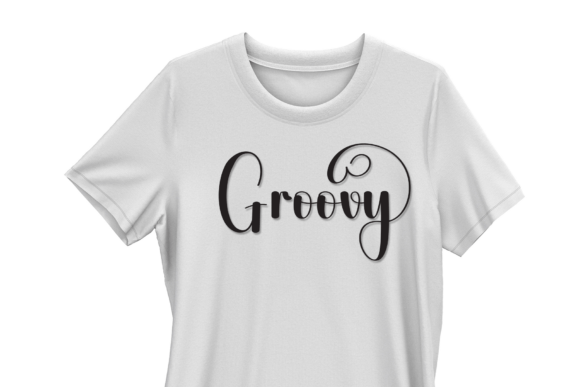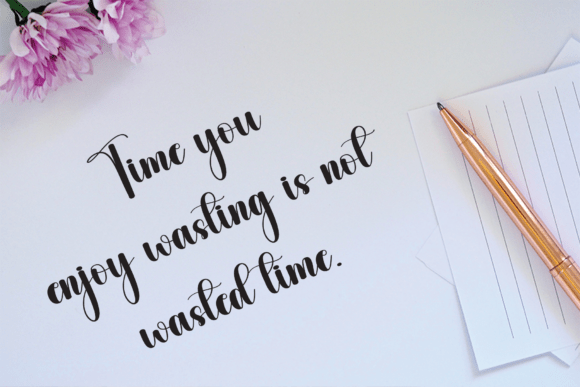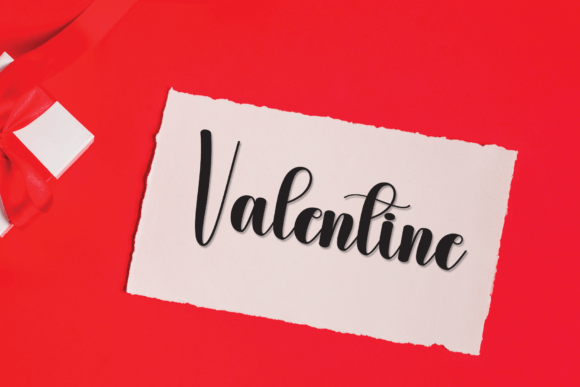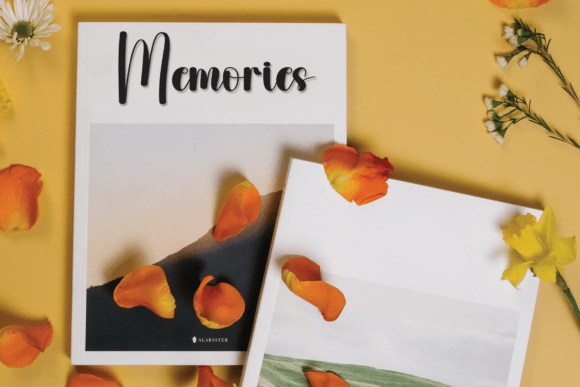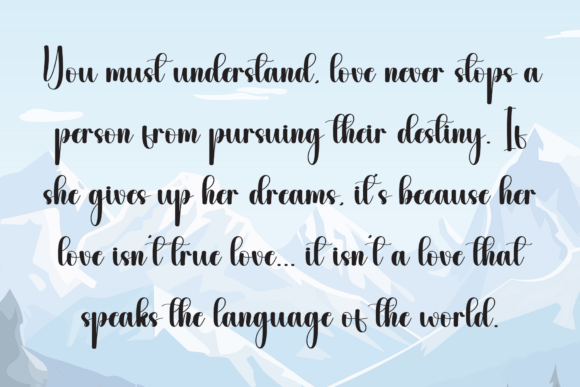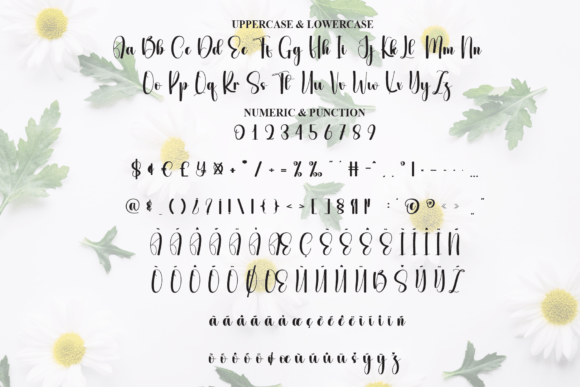
The Elusive Elegance: How Daisy Font Transformed My Design Workflow
I recall the exact moment I fell in love with the Daisy font. I was working on a wedding invitation project for a client who wanted something elegant, yet understated. As I scrolled through font after font, nothing seemed quite right – until Daisy caught my eye. Its delicate charm and organic flow instantly resonated with me, and I knew I had found the perfect fit. In this article, I’ll share my experience with Daisy, its features, and how to make the most of this beautiful handwritten script font.
What I Love About Daisy ✨
- ✅ Effortless elegance: Daisy exudes a sophisticated, hand-penned aesthetic that’s both timeless and fresh.
- ✅ Versatility: This font is suitable for a wide range of design projects, from luxury logos to feminine branding and delicate social media watermarks.
- ✅ Organic flow: Daisy’s handwritten script style gives it a unique, personal touch that’s hard to replicate with other fonts.
While Daisy is an exceptional font, there are a few things to keep in mind:
- 🤔 Limited use in body text: Due to its elegant, cursive nature, Daisy might not be the best choice for lengthy body text. It’s better suited for headings, titles, and short paragraphs.
- ⚠️ Ligature limitations: While Daisy supports ligatures, there might be some limitations when using certain character combinations.
The Story Behind Daisy: A Glimpse into the Designer’s Inspiration
Daisy was designed with the intention of capturing the essence of effortless elegance. The designer aimed to create a font that would evoke a sense of sophistication and refinement, while still feeling approachable and personal. Inspired by traditional calligraphy and handwritten scripts, Daisy brings a touch of classic charm to modern designs.
Q: What type of projects is Daisy best suited for?
A: Daisy is ideal for luxury logos, high-fashion editorial headers, feminine branding, and delicate social media watermarks.
Q: Can I use Daisy for body text?
A: While possible, Daisy is better suited for headings, titles, and short paragraphs due to its elegant, cursive nature.
Q: Does Daisy support OpenType features?
A: Yes, Daisy supports OpenType features like ligatures and stylistic alternates, which can be accessed in compatible design platforms.
Q: Is Daisy a versatile font?
A: Absolutely! Daisy’s elegant, handwritten script style makes it suitable for a wide range of design projects, from wedding invitations to luxury branding.